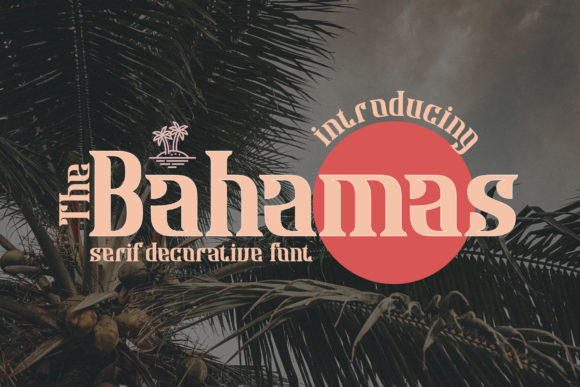
Behold the Bahamas Font, a spellbinding serif font that echoes the beauty of vintage surfing posters, with each letter gracefully flowing like a wave. This masterpiece, crafted by the ingenious Gumacreative, is a visual symphony that will elevate your designs to new heights.
Immerse yourself in the Bahamas Font's captivating charm, a font that exudes both elegance and playfulness. Its intricate curves and sweeping lines evoke a sense of nostalgia, while its modern sensibility ensures it remains timeless. With Bahamas Font as your creative companion, you unlock a world of possibilities, where your designs become captivating stories told in the language of typography.
Unleash your creativity with the Bahamas Font, a versatile font that seamlessly adapts to a myriad of design projects. Picture your logo designs adorned with Bahamas Font, its bold strokes commanding attention and leaving a lasting impression. This font is a master of transformation, lending its grace to labels, t-shirt prints, product packaging, and invitations, breathing life into your ideas with effortless style.
Transport your audience to a world of wonder with Bahamas Font, a font that captures the essence of coastal living. Its organic flow and subtle textures evoke the serenity of sandy beaches and crashing waves, inviting viewers to embark on a journey of visual exploration. With Bahamas Font at your fingertips, you possess the power to craft advertisements that resonate, leaving an indelible mark on hearts and minds.